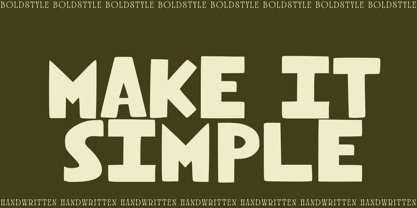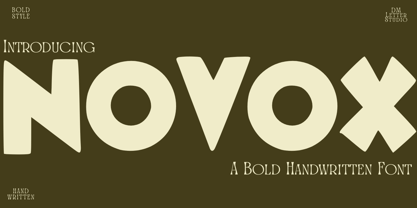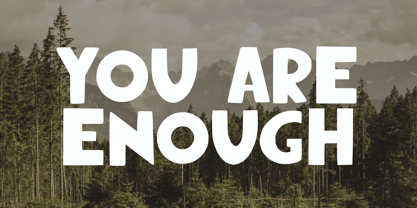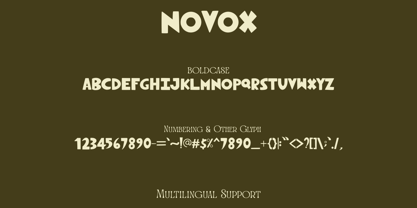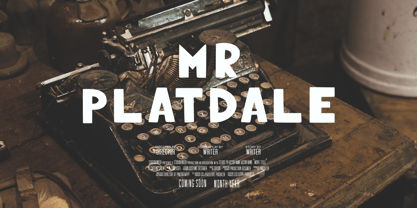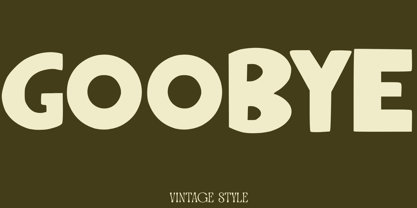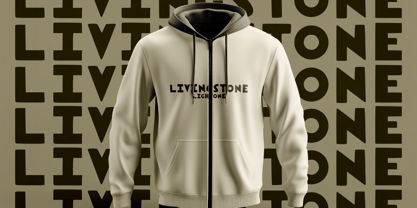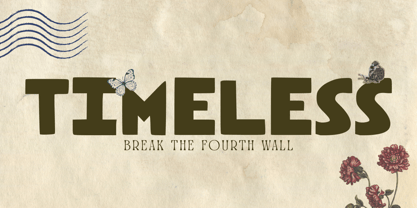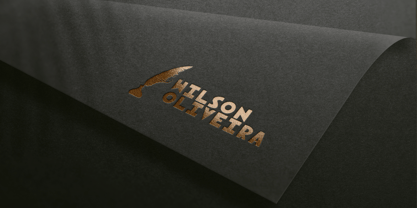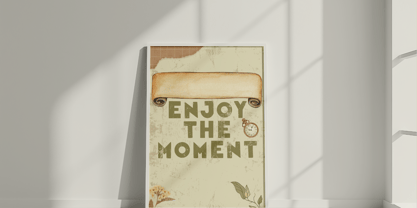
Novox
La familia tipográfica Novox fue diseñada por Dimas Prasetyo y publicada por DM Studio. Novox contiene 1 estilos.
Novox Font is a bold handwritten typeface that combines strong strokes with a casual, modern aesthetic. Designed to stand out while keeping a personal and handcrafted vibe, Novox is perfect for logos, branding, packaging, apparel, social media graphics, and bold headlines that demand attention.
With its thick, confident letterforms and natural handwritten flow, Novox brings energy and authenticity to any design. Whether you're creating a streetwear brand, crafting an edgy poster, or designing eye-catching merch, this font adds a punch of personality to your work.
Features:
• Bold & Expressive Style: Thick, dynamic strokes create strong visual impact.
• Handcrafted Feel: Natural handwritten flow adds authenticity and personality.
• Perfect for Branding: Ideal for logos, headlines, posters, apparel, and more.
• Complete Character Set: Includes uppercase, lowercase, numbers, punctuation, and symbols.
• Multilingual Support: Covers multiple languages for global use.